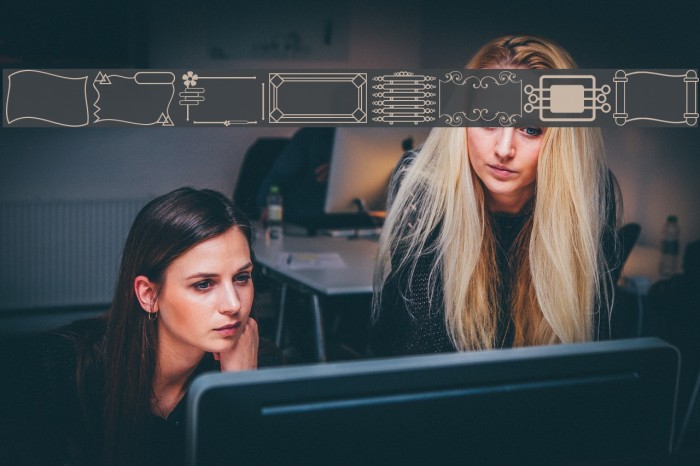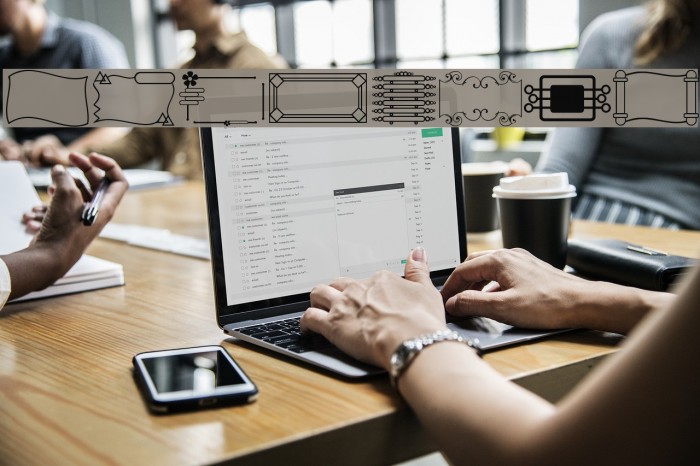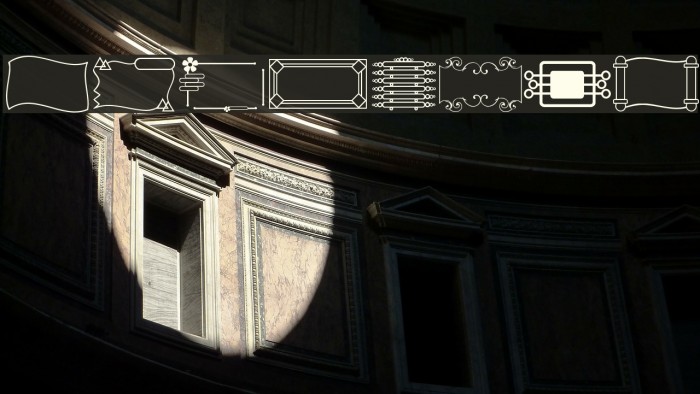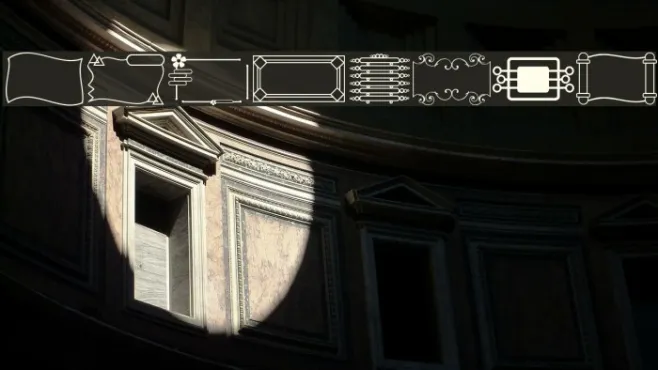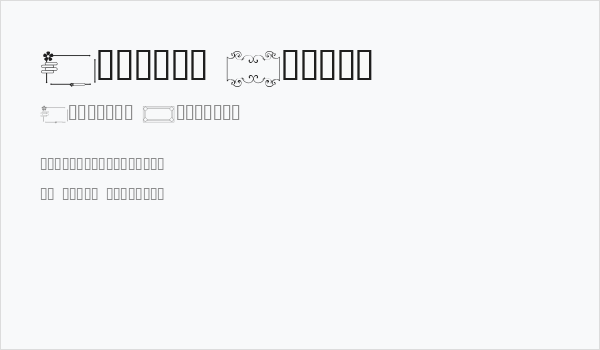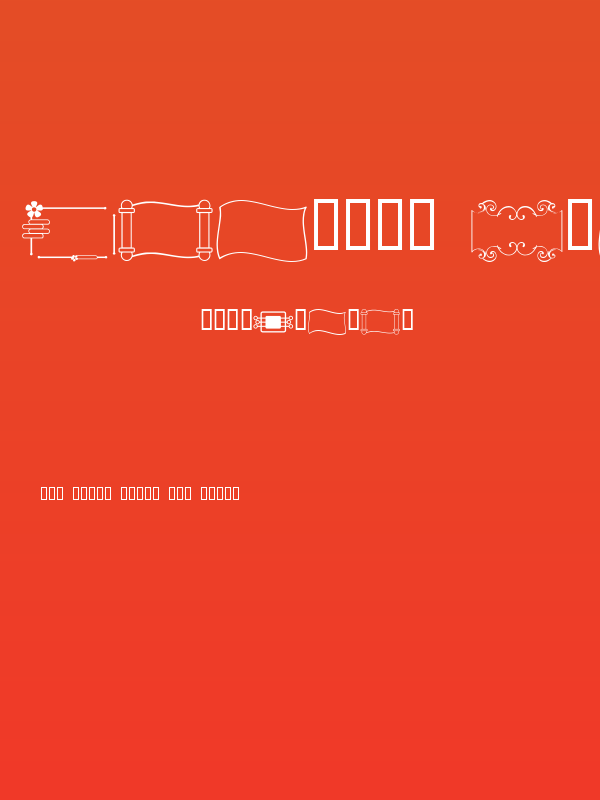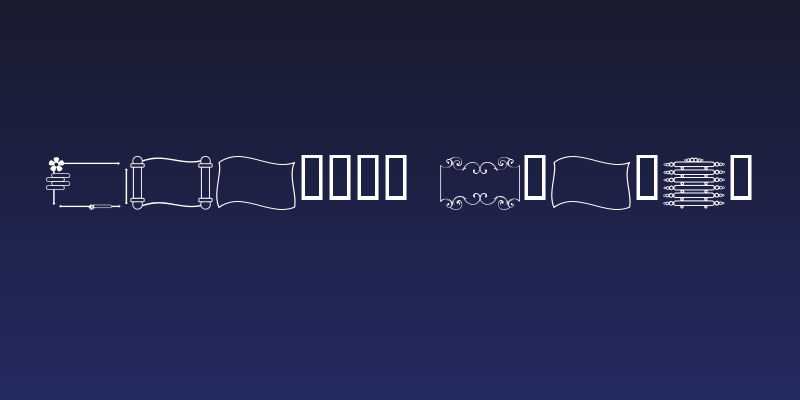
Chay's Frames Font
Chay's Frames Description
This is not a valid font. The image contains decorative frames and borders rather than a set of typographic characters. Each element is uniquely designed, focusing on ornamental and artistic styles, which are more suitable for embellishing documents or creating decorative layouts rather than serving as a functional typeface.
| Use Case | Decorative elements, not suitable for text. |
| Proposed Projects | Use for decorative borders in invitations, certificates, or artistic design projects. |